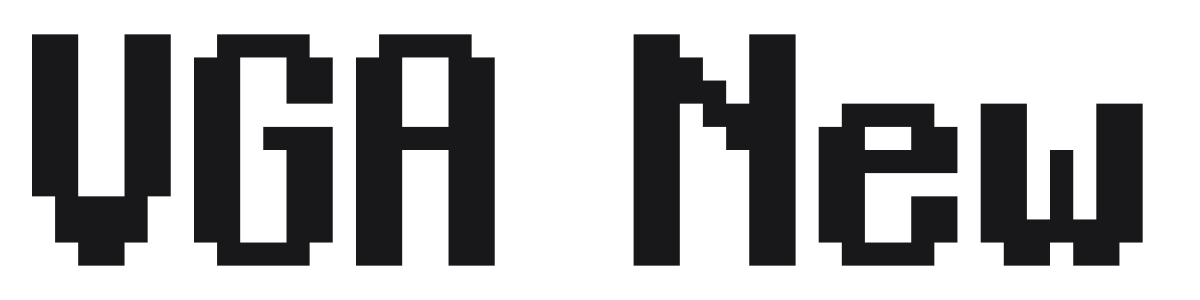
VGA New
by Aidan Levy
VGA New is an opinionated rework of the classic IBM VGA text mode font, the typeface burned into the memory of early PCs and DOS-era screens. It sharpens and refines the original pixel grid while keeping the chunky, blocky character that made the source material so distinctive. Designers reach for this when they want genuine computing nostalgia without resorting to a cheap approximation.